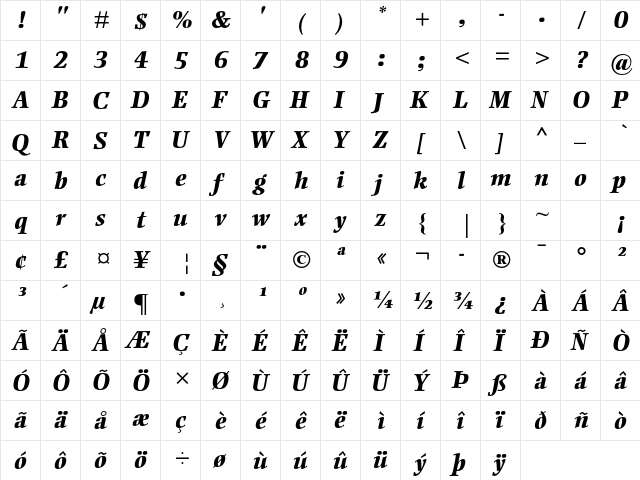
Ellington MT Std Extra Bold Italic
| Designer | Michael Harvey |
Design Context for Ellington MT Std Typeface
Ellington MT Std offers clean, dependable letterforms without strong stylistic allegiance, making it a practical choice for designers who need flexibility. The slanted form adds forward momentum and visual energy. Its bold stroke weight gives it real presence on the page.
Pro Tip: Try Ellington MT Std for annotation and caption copy alongside an upright companion — the contrast in angle creates a dynamic but ordered typographic system.